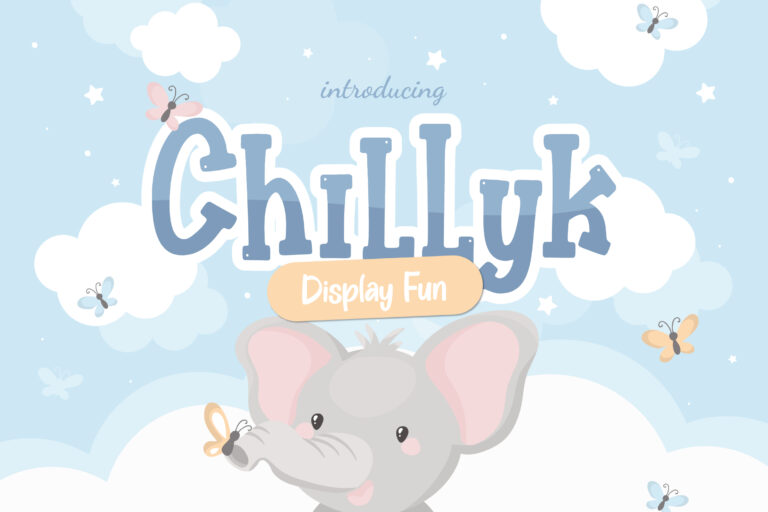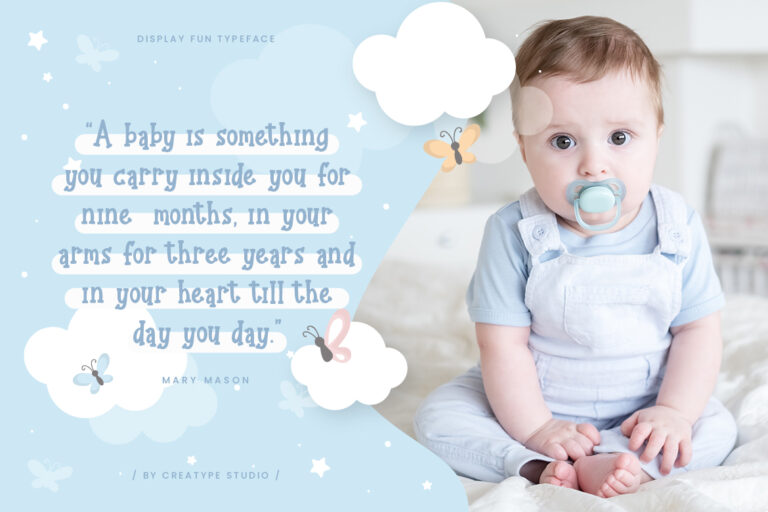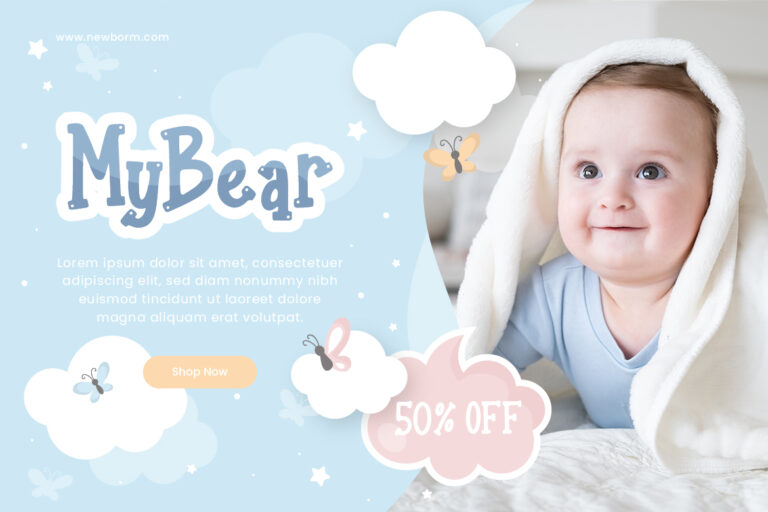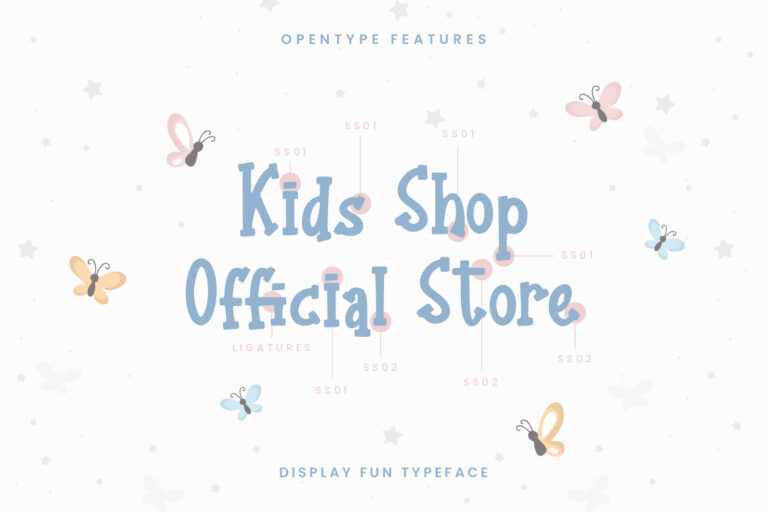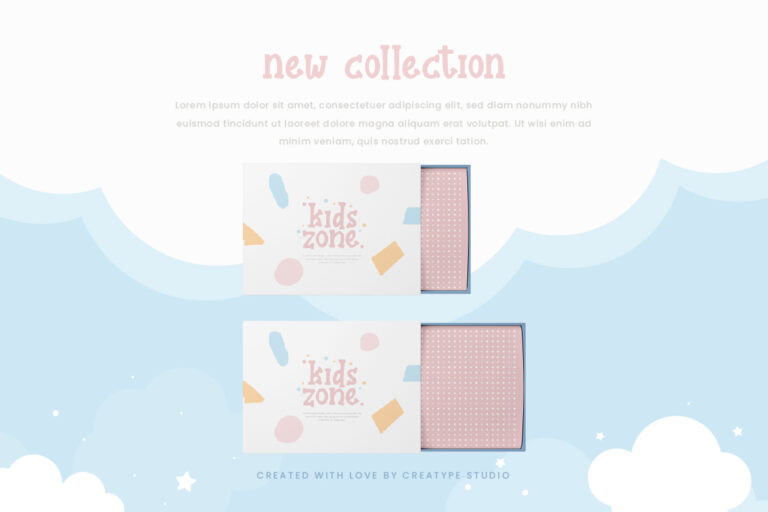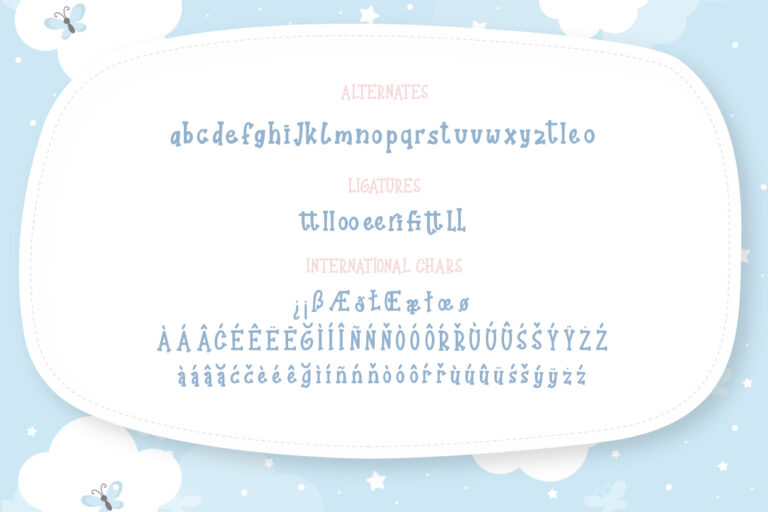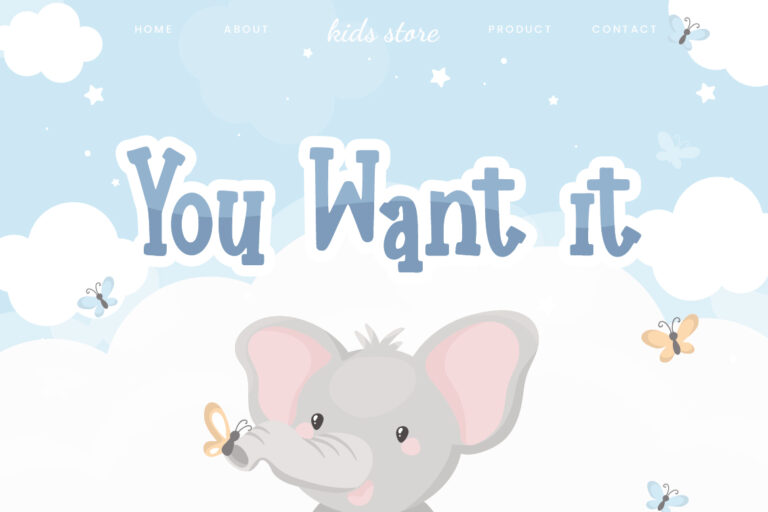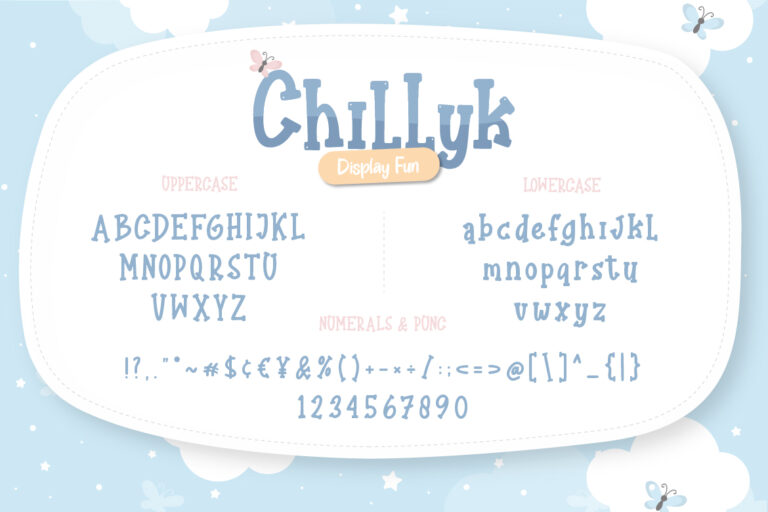
Chillyk is very fun display typeface. This font is perfect for all your craft projects that require a sense of passion and joy. It has a fun look and is perfect as a display font.
Chillyk Fun Display